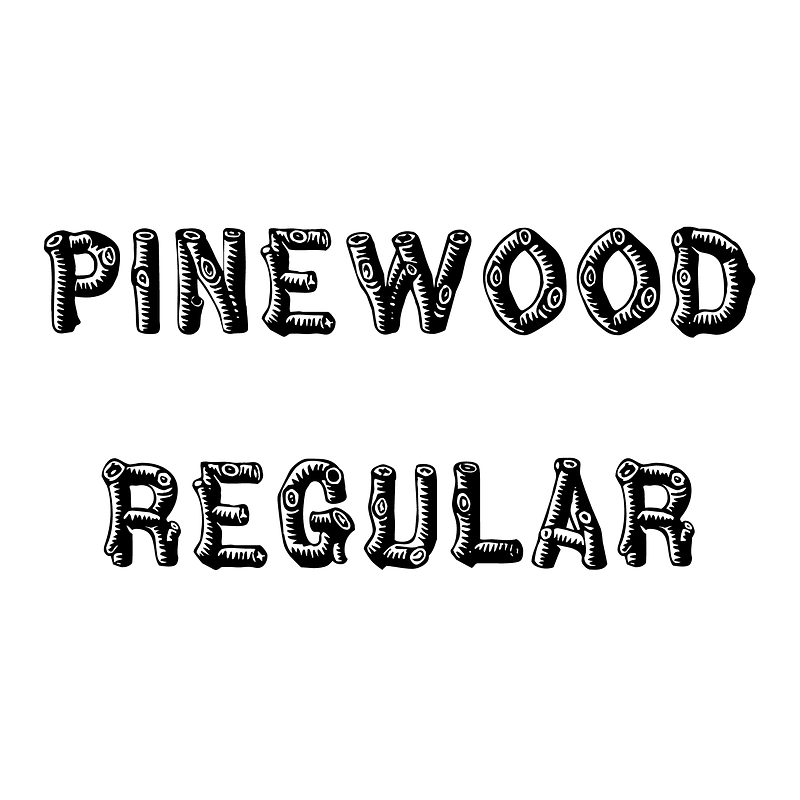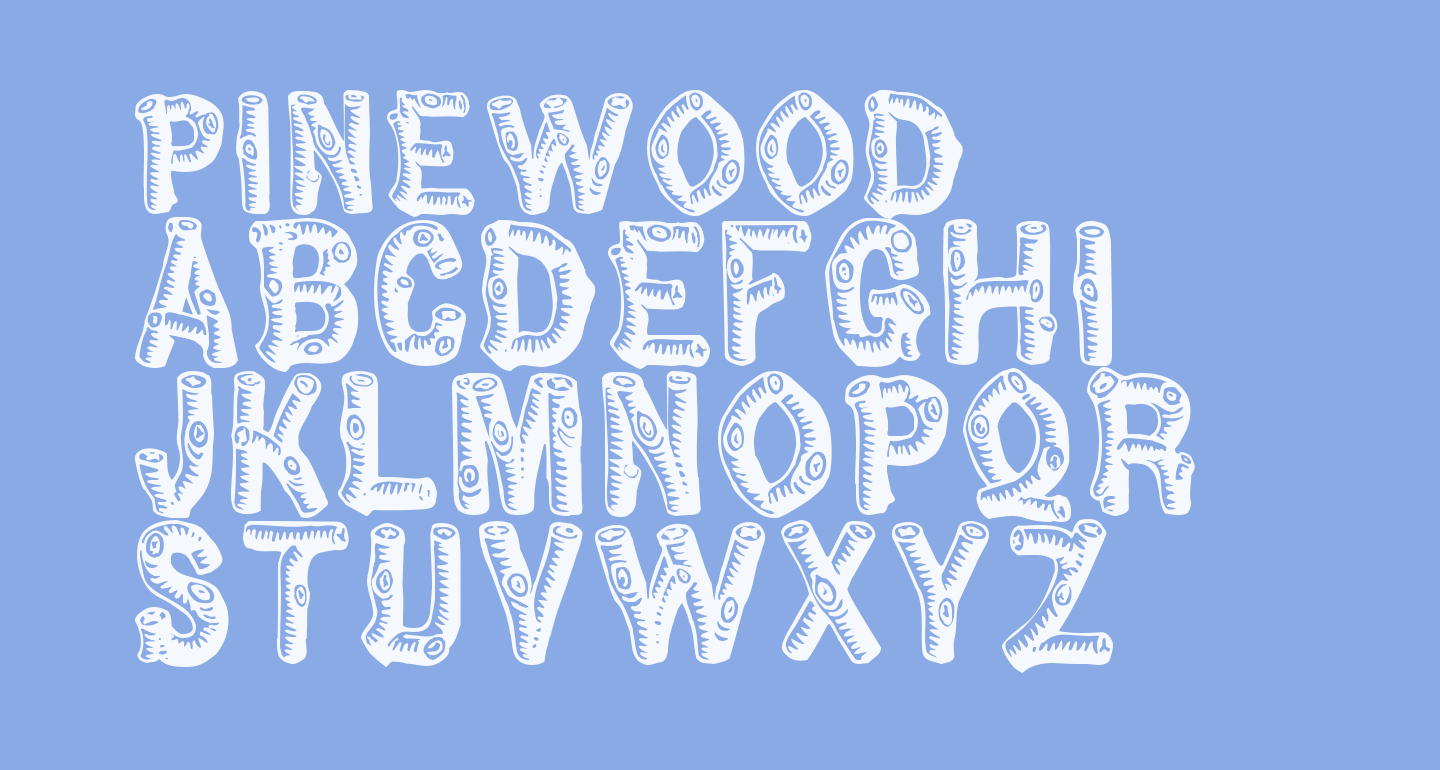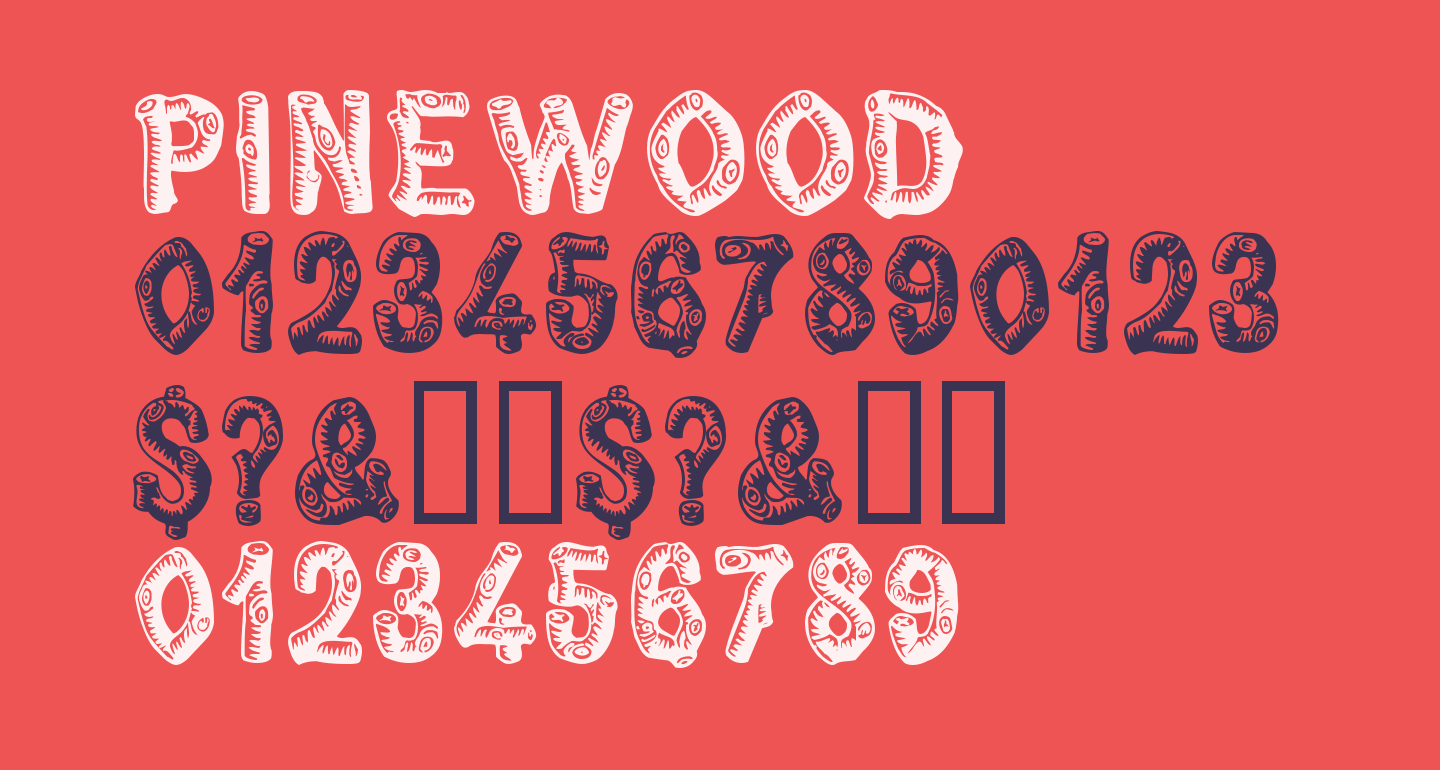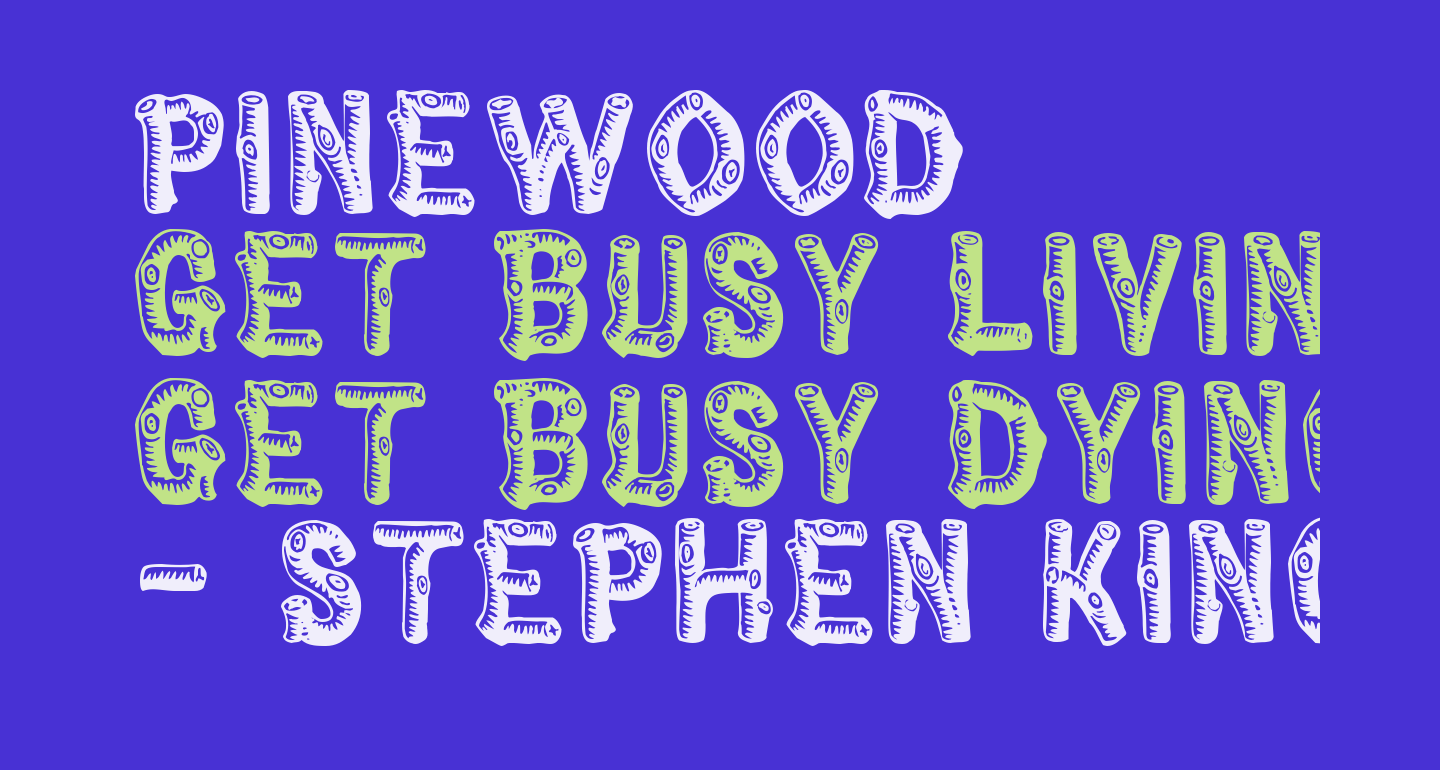
Pinewood Font Generator . Download free for commercial use. Comic fun kids all caps cartoon. Free download of pinewood font. Pinewood is a wood font that comes with wooden characters which are bold and 3d. Pinewood by richard william mueller. Click to find the best 164 free fonts in the wood style. 314,864 downloads (12 yesterday) 4 comments. The pinewood font has been downloaded 184,120 times. You can feel wild nature and the organic vibes it gives off. Every font is free to download! Download and install the pinewood font by dieter steffmann.
Free download of pinewood font. Pinewood by richard william mueller. Comic fun kids all caps cartoon. Click to find the best 164 free fonts in the wood style. 314,864 downloads (12 yesterday) 4 comments. The pinewood font has been downloaded 184,120 times. Download free for commercial use. You can feel wild nature and the organic vibes it gives off. Pinewood is a wood font that comes with wooden characters which are bold and 3d. Every font is free to download!
Pinewood Font Generator Every font is free to download! Pinewood by richard william mueller. Download free for commercial use. Comic fun kids all caps cartoon. 314,864 downloads (12 yesterday) 4 comments. The pinewood font has been downloaded 184,120 times. You can feel wild nature and the organic vibes it gives off. Pinewood is a wood font that comes with wooden characters which are bold and 3d. Free download of pinewood font. Download and install the pinewood font by dieter steffmann. Click to find the best 164 free fonts in the wood style. Every font is free to download!
Pinewood font download Pinewood Font Generator Download free for commercial use. The pinewood font has been downloaded 184,120 times. 314,864 downloads (12 yesterday) 4 comments. Download and install the pinewood font by dieter steffmann. Click to find the best 164 free fonts in the wood style. Pinewood by richard william mueller. Comic fun kids all caps cartoon. You can feel wild nature and the organic vibes. Pinewood Font Generator.
Pinewood Font Generator Download and install the pinewood font by dieter steffmann. Click to find the best 164 free fonts in the wood style. Download free for commercial use. Comic fun kids all caps cartoon. 314,864 downloads (12 yesterday) 4 comments. The pinewood font has been downloaded 184,120 times. Free download of pinewood font. You can feel wild nature and the organic vibes. Pinewood Font Generator.
Pinewood Outline Font Måns Grebäck FontSpace Pinewood Font Generator Every font is free to download! Download and install the pinewood font by dieter steffmann. 314,864 downloads (12 yesterday) 4 comments. Comic fun kids all caps cartoon. You can feel wild nature and the organic vibes it gives off. Free download of pinewood font. Pinewood is a wood font that comes with wooden characters which are bold and 3d. Pinewood Font Generator.
Pinewood Outline PERSONAL USE Font Download Free for Desktop & font Pinewood Font Generator Every font is free to download! Free download of pinewood font. Pinewood by richard william mueller. Pinewood is a wood font that comes with wooden characters which are bold and 3d. Download and install the pinewood font by dieter steffmann. The pinewood font has been downloaded 184,120 times. 314,864 downloads (12 yesterday) 4 comments. Click to find the best 164. Pinewood Font Generator.
Pinewood Outline Font download free Pinewood Font Generator Download free for commercial use. Pinewood is a wood font that comes with wooden characters which are bold and 3d. You can feel wild nature and the organic vibes it gives off. Every font is free to download! 314,864 downloads (12 yesterday) 4 comments. Download and install the pinewood font by dieter steffmann. Comic fun kids all caps cartoon. Click. Pinewood Font Generator.
Pinewood Outline font Font Tr Pinewood Font Generator Every font is free to download! Pinewood is a wood font that comes with wooden characters which are bold and 3d. 314,864 downloads (12 yesterday) 4 comments. Download free for commercial use. Click to find the best 164 free fonts in the wood style. The pinewood font has been downloaded 184,120 times. You can feel wild nature and the organic. Pinewood Font Generator.
25+ Free Brush, Script & Hand Lettering Fonts Design Shack Pinewood Font Generator Comic fun kids all caps cartoon. Free download of pinewood font. Download free for commercial use. Pinewood by richard william mueller. Pinewood is a wood font that comes with wooden characters which are bold and 3d. Download and install the pinewood font by dieter steffmann. The pinewood font has been downloaded 184,120 times. 314,864 downloads (12 yesterday) 4 comments. Every. Pinewood Font Generator.
HV Pinewood font free download • Pinewood Font Generator Click to find the best 164 free fonts in the wood style. Download free for commercial use. Download and install the pinewood font by dieter steffmann. Free download of pinewood font. The pinewood font has been downloaded 184,120 times. Pinewood by richard william mueller. Every font is free to download! You can feel wild nature and the organic vibes it. Pinewood Font Generator.
Pinewood Font Generator Comic fun kids all caps cartoon. The pinewood font has been downloaded 184,120 times. Download and install the pinewood font by dieter steffmann. Pinewood by richard william mueller. Every font is free to download! 314,864 downloads (12 yesterday) 4 comments. Free download of pinewood font. You can feel wild nature and the organic vibes it gives off. Pinewood is a. Pinewood Font Generator.